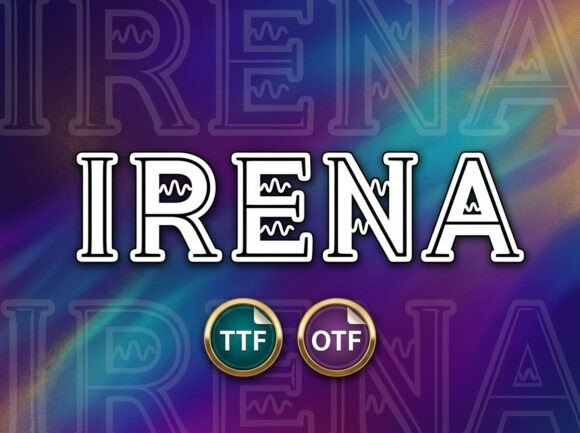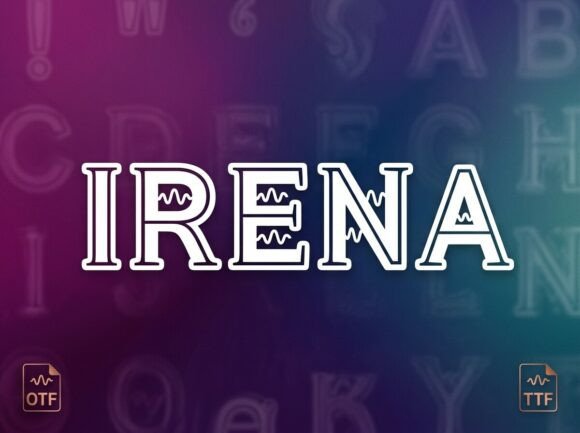
Introduction to Irena Font
Have you ever stared at a blank canvas, feeling the creative juices start to flow, and suddenly, the perfect font pops into your mind? For designers like us, that moment is pure magic. It’s the spark that ignites a new project, a fresh idea, or a bold statement. And that’s exactly what Irena Font is all about – making a statement.
This stunning decorative display font is more than just a design element; it’s a game-changer. With its unique artistic elements and strong visual personality, Irena Font is the perfect companion for any creative project that demands attention. Whether you’re working on a logo, packaging, or a high-quality design resource, this font is sure to elevate your work to the next level.
Designed with precision and care, Irena Font is a high-quality design resource that’s ready to be used. With its transparent background and compatibility across all devices, you can rely on it to deliver a polished finish every time. So, what are you waiting for? Dive into the world of Irena Font and discover a new level of creativity and expression.
Key Features of Irena Font
- High-quality design resource with a unique and creative style, perfect for various projects.
- Includes a transparent background, allowing for seamless integration into any design.
- Features a high-resolution design, ideal for use in print and digital projects.
- Supports a wide range of languages, making it a versatile design resource.
- Perfect for designers looking for a stylish and creative font to enhance their project.
Honest Review: Irena Font
As a designer, I’m always on the lookout for high-quality design resources that can elevate my creative projects. The Irena Font is one such resource that caught my attention.
Here’s what I like about it:
- ✨ The Irena Font has a clean and elegant design that works well for various projects, from brochures to logos.
- ✨ The transparent background makes it easy to integrate into any design, without worrying about background clashes.
- ⚠️ The font may not be suitable for large-scale projects, as it’s a bit limited in terms of character sets and styles.
- ⚠️ Some users may find the font a bit too minimalist, which may not be suitable for all design projects.
Overall, I think the Irena Font is a great design resource for small to medium-sized projects. It’s easy to use, and the free download makes it a great value. While it may have some limitations, I think it’s definitely worth checking out for any designer looking to add some elegance to their work.
Irena Font is ideal for use in presentations, documents, and creative projects that require a high-quality design resource. It’s perfect for designers, students, and anyone looking for a versatile and easy-to-use font.